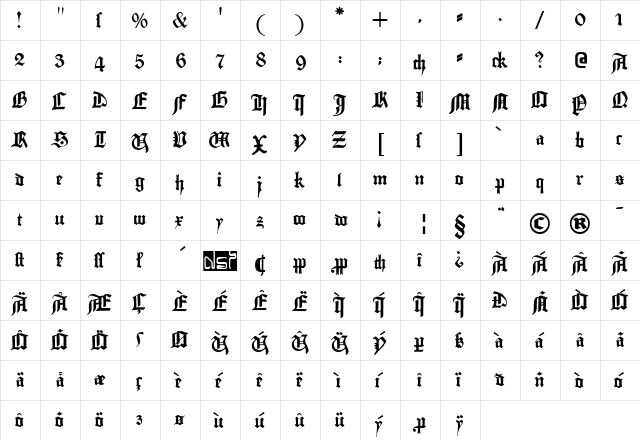
Gutenberg Textura Regular
Design Context for Gutenberg Textura Typeface
Gutenberg Textura channels the dramatic heritage of Fraktur and Gothic scripts, bringing a sense of historical gravitas to any design.
A natural fit for music packaging, gothic editorial design, and any project that needs historical weight.
Font Pairing: Pair with a clean neutral sans-serif for body copy to let Gutenberg Textura's character lead without overwhelming the composition.
Pro Tip: Reserve Gutenberg Textura for display and logo use — pair it with a clean sans-serif for body copy to prevent the composition from feeling oppressive.